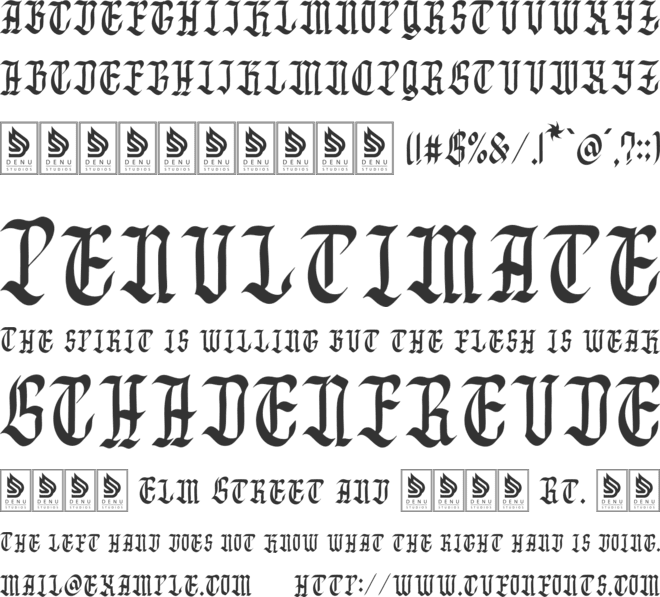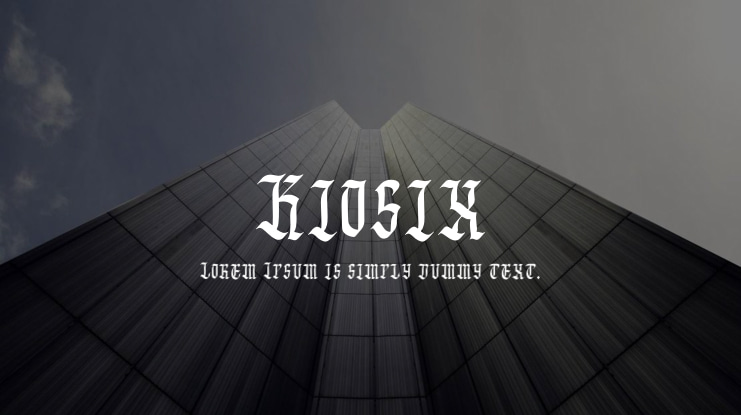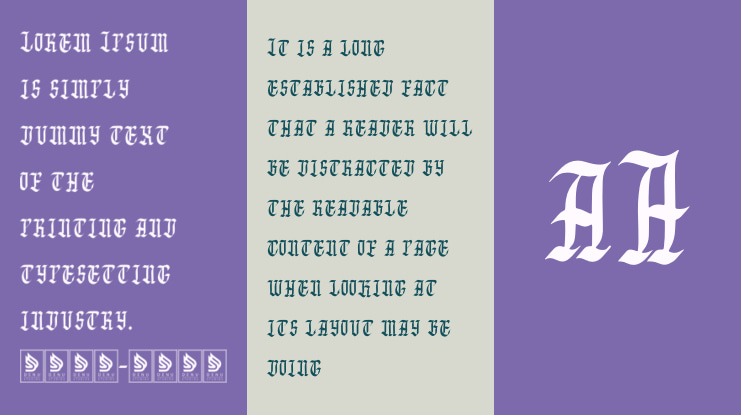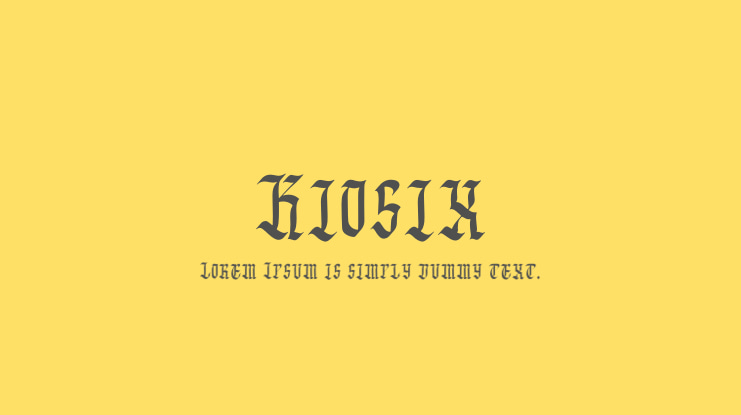
Kiosix Font
Kiosix | Blackletter Font is suitable for various projects such as logos, branding projects, homeware designs, product packaging, mugs, quotes, posters, shopping bags, t-shirts, book covers, name cards, invitation cards, greeting cards, labels, photography, watermarks, special events, and any other lovely projects that need a Blackletter Font touch.